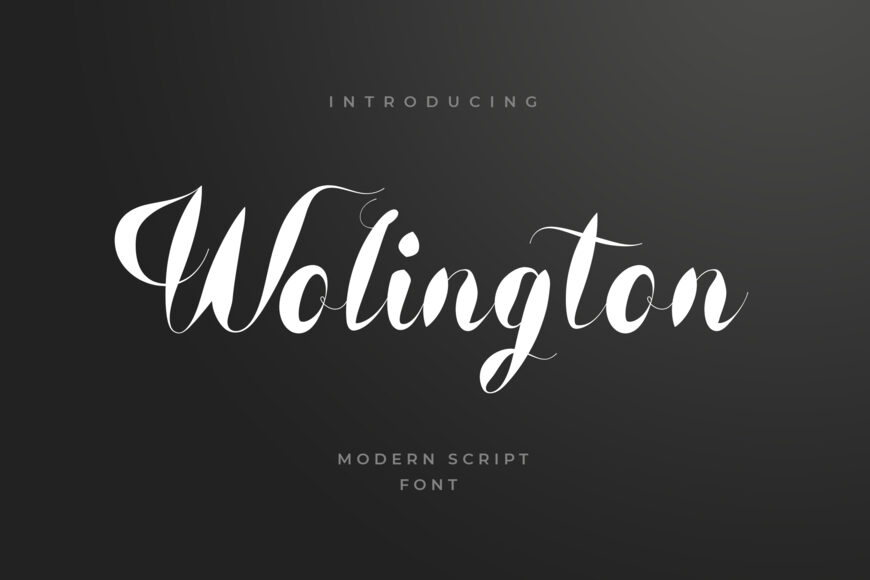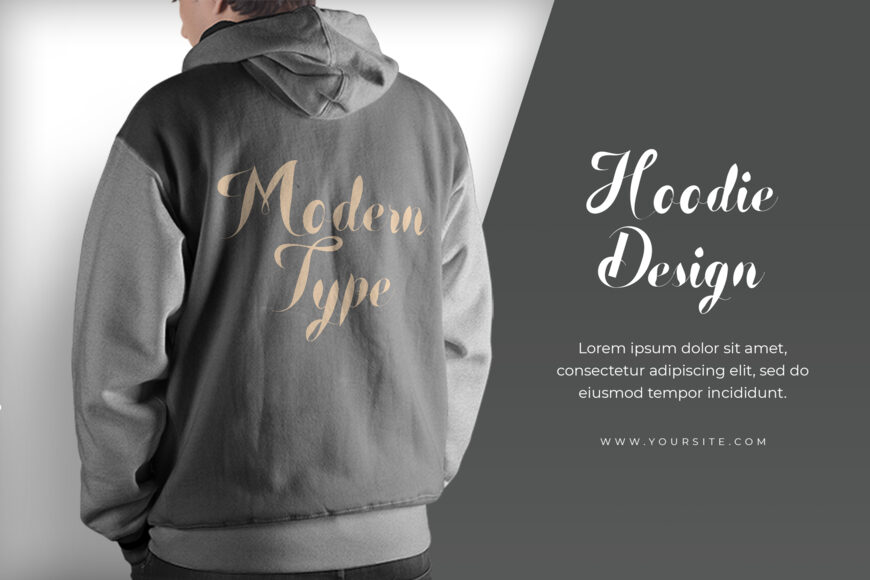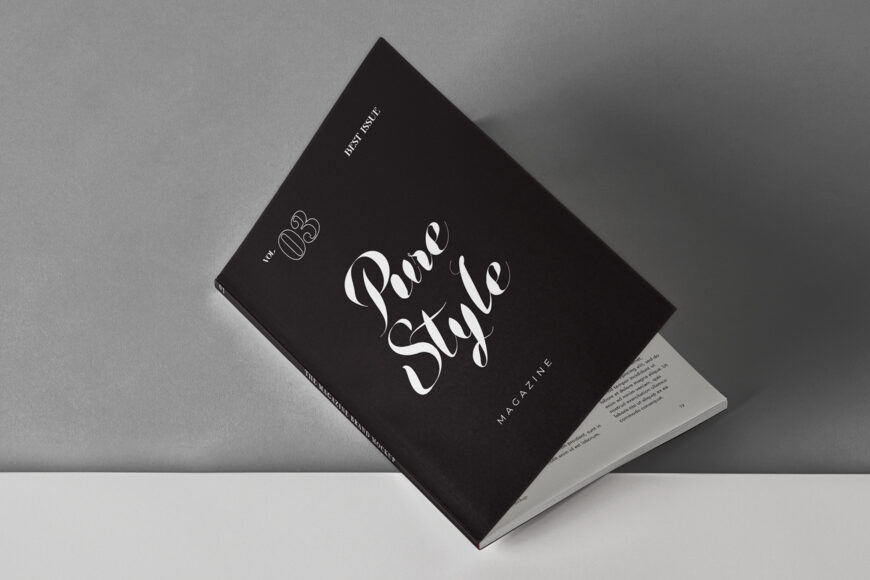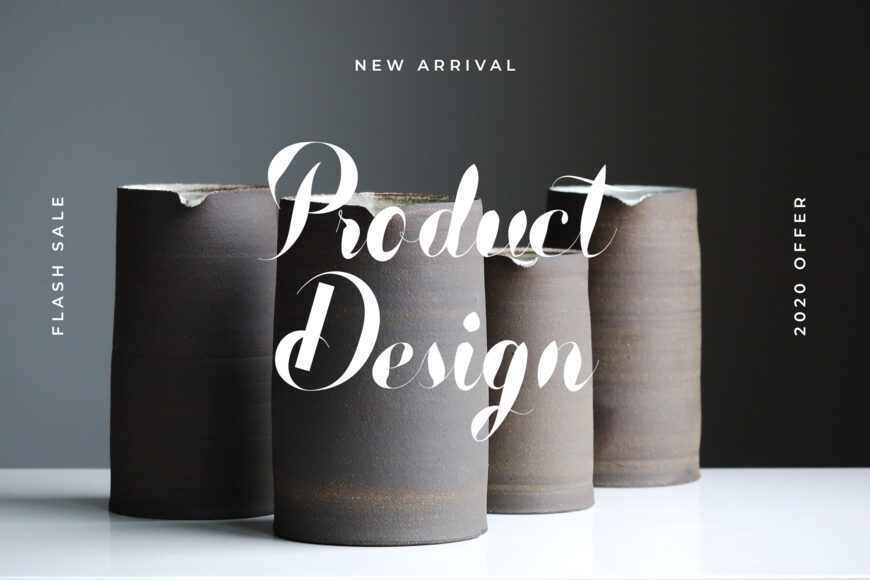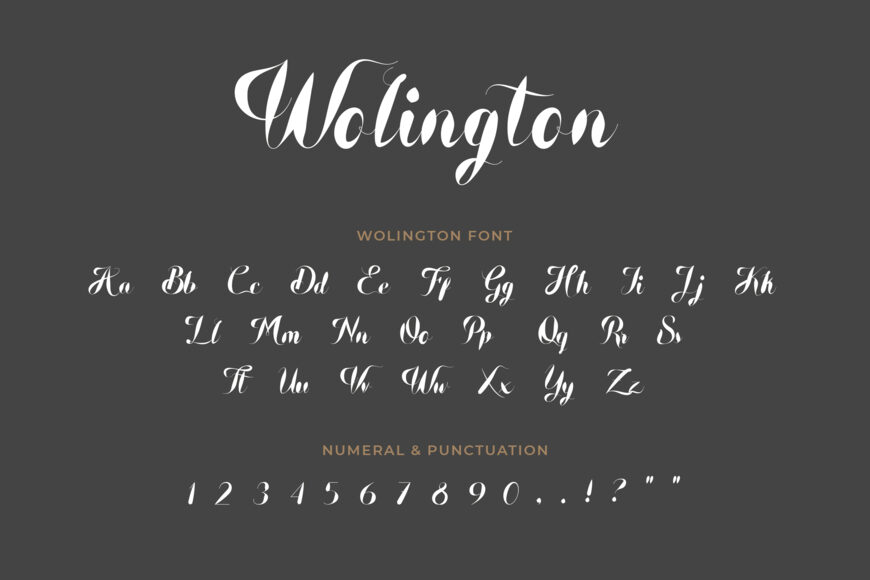
Wolington Font
Wolington is a fashionable and delicate handwritten font. It can be used for various purposes such as logos, wedding invitations, headings, t-shirts, letterhead, signage, labels, news, posters, badges and so much more.